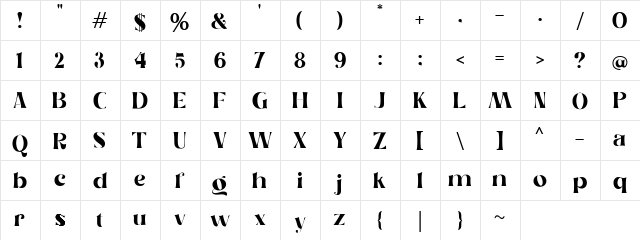
Catellos DEMO Catellos
Design Context for Catellos DEMO Typeface
Catellos DEMO is a composed and adaptable typeface that performs quietly and consistently across a wide range of design contexts.